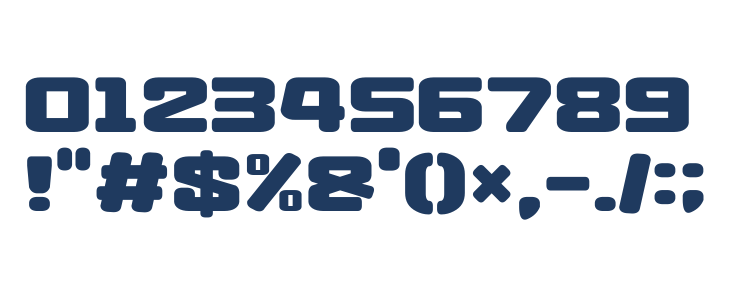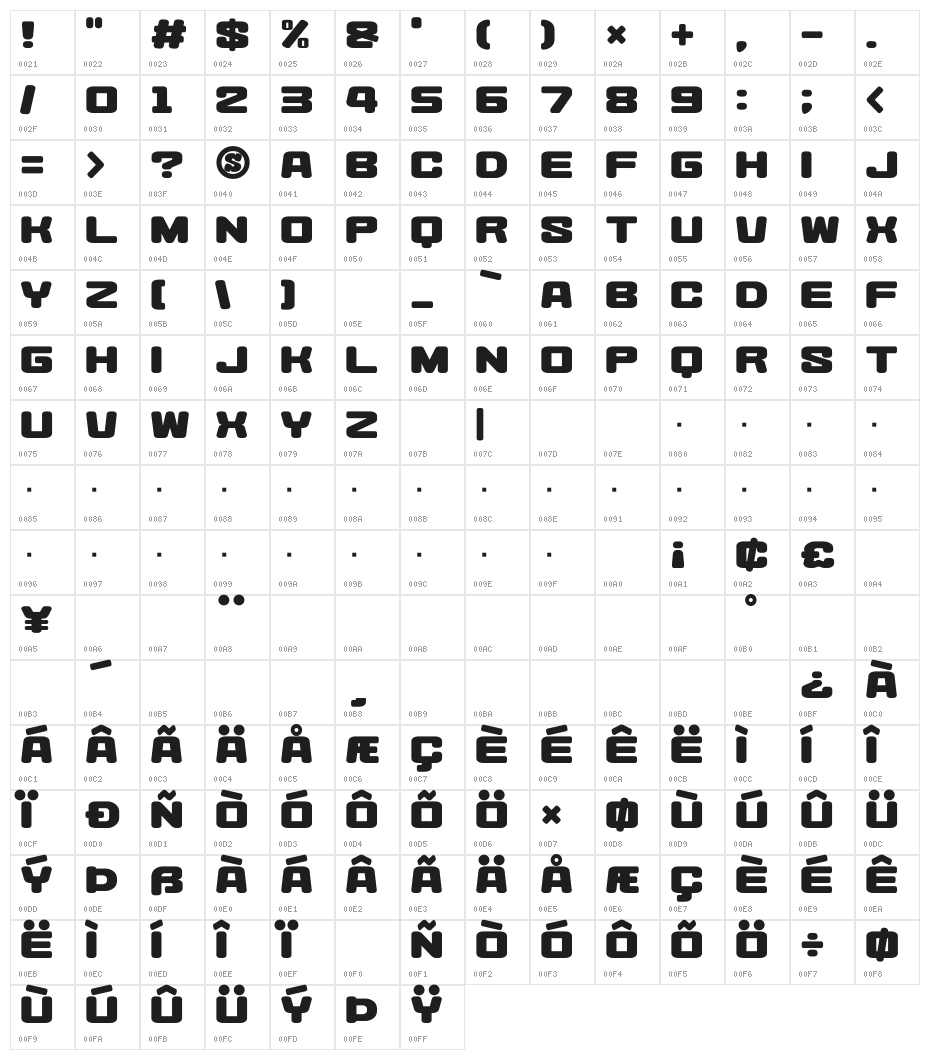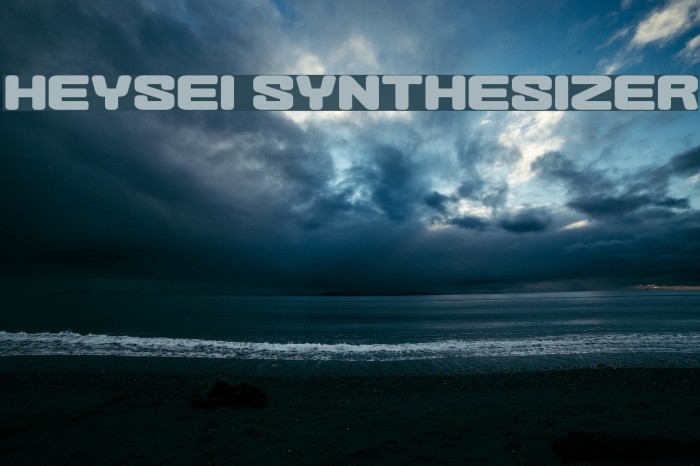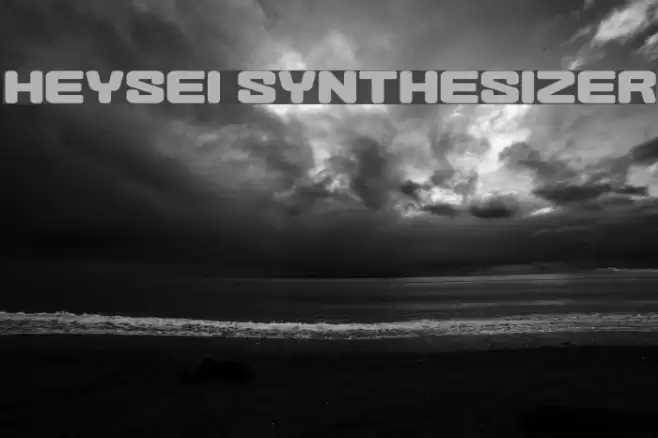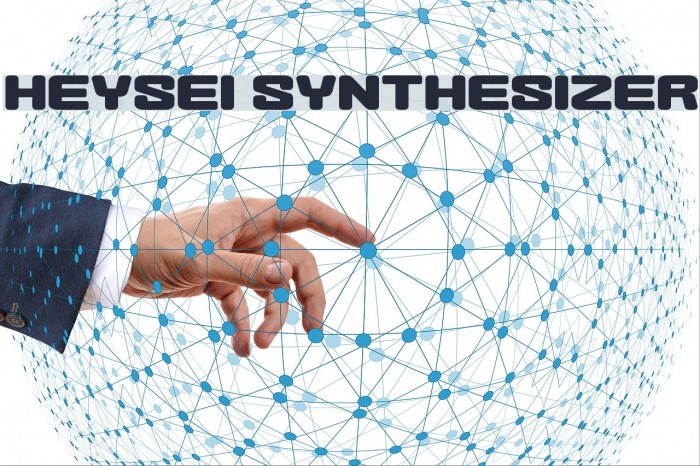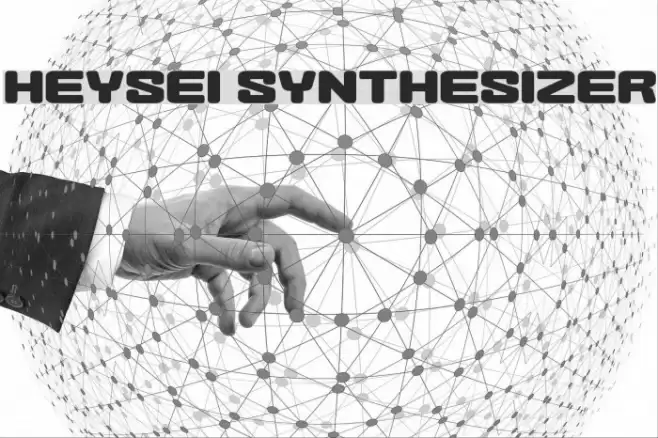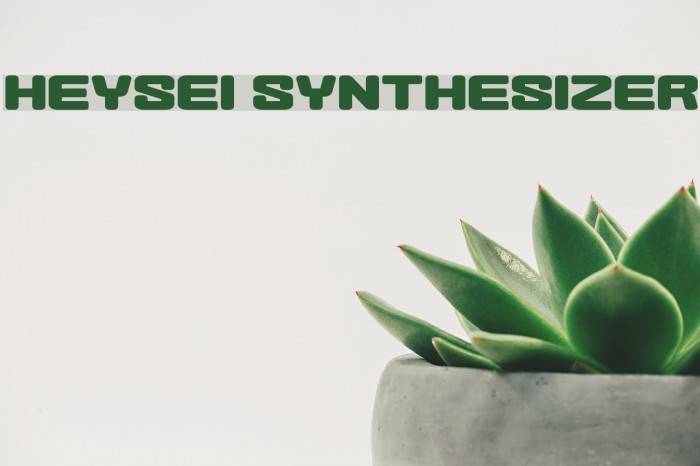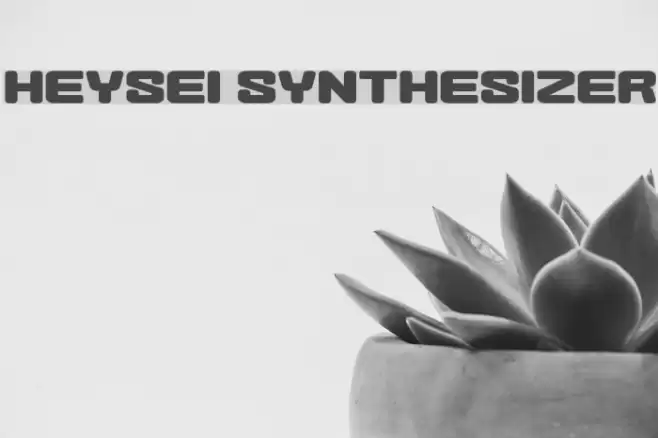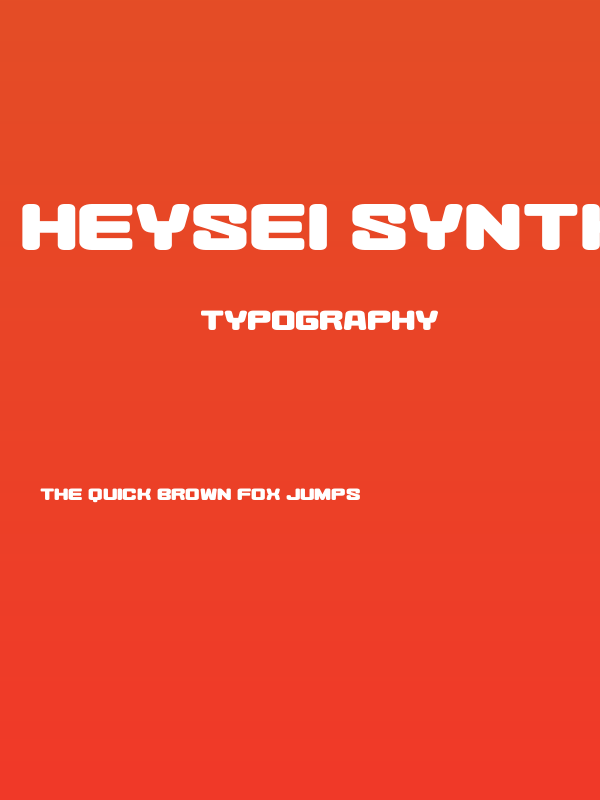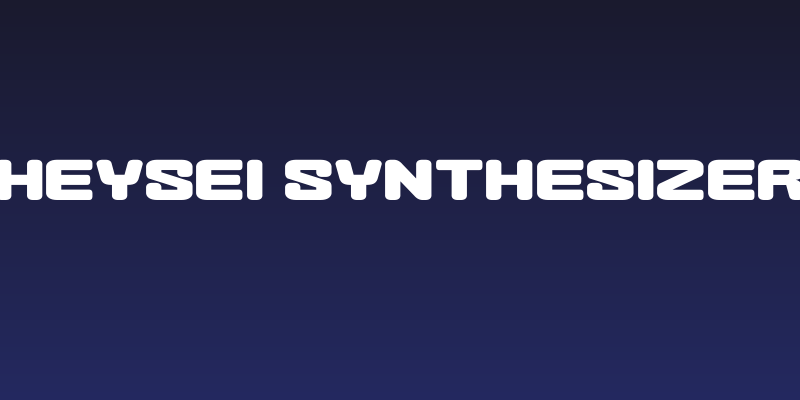
Heysei Synthesizer Font
Heysei Synthesizer Description
This font features a bold and futuristic design with rounded edges and a strong geometric structure. The characters are uniformly wide, giving a monospaced appearance, yet they maintain a distinct modern flair. The uppercase letters are prominent and assertive, while the lowercase letters mirror this boldness with slightly softer curves. Numbers and special characters are designed to match the overall aesthetic, ensuring consistency across all elements. The font's style is ideal for projects that require a contemporary and tech-inspired look, making it suitable for digital interfaces, gaming titles, and tech branding. Its bold weight and uniform width make it highly legible, even at smaller sizes.
| Proposed Projects | Ideal for digital interfaces, gaming titles, tech branding, and futuristic designs. |